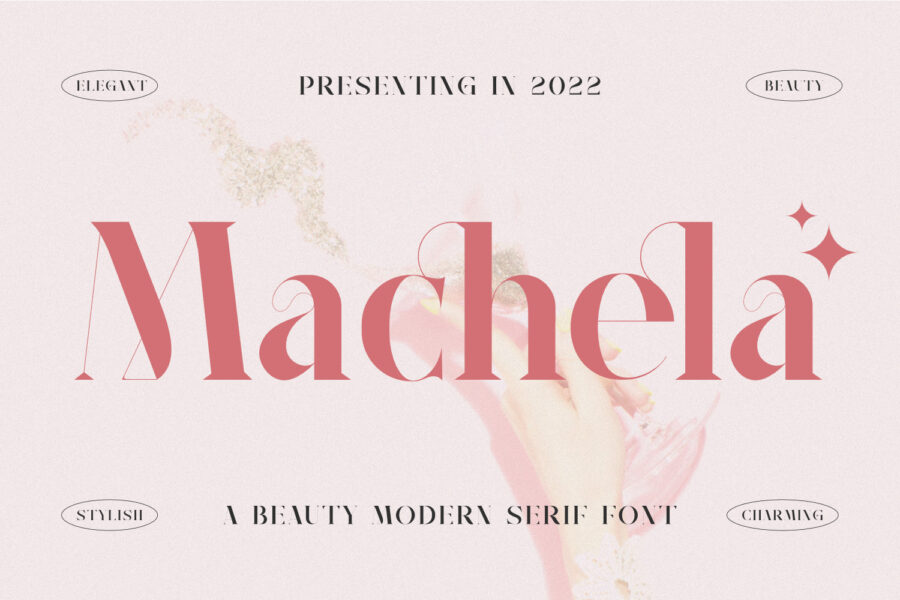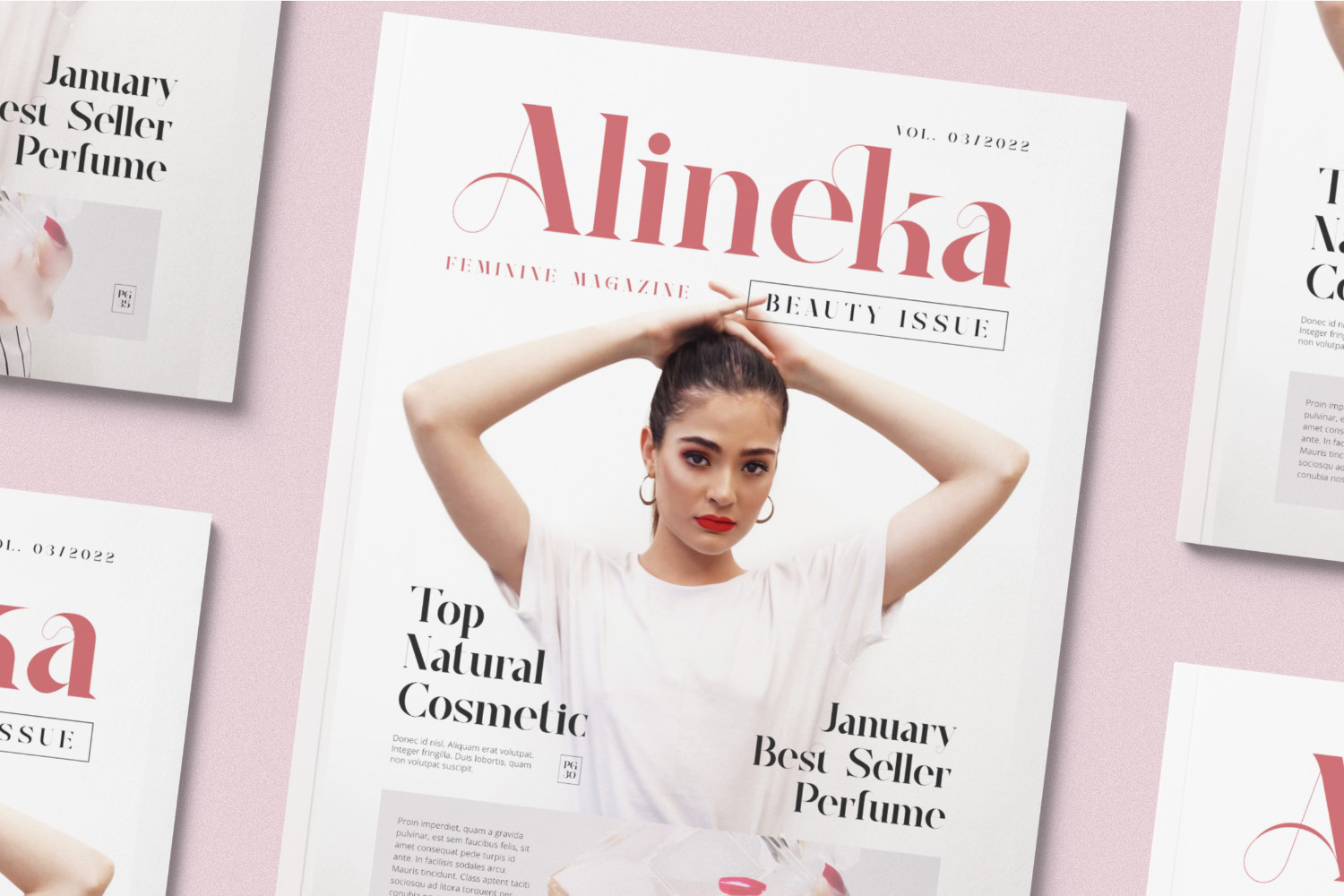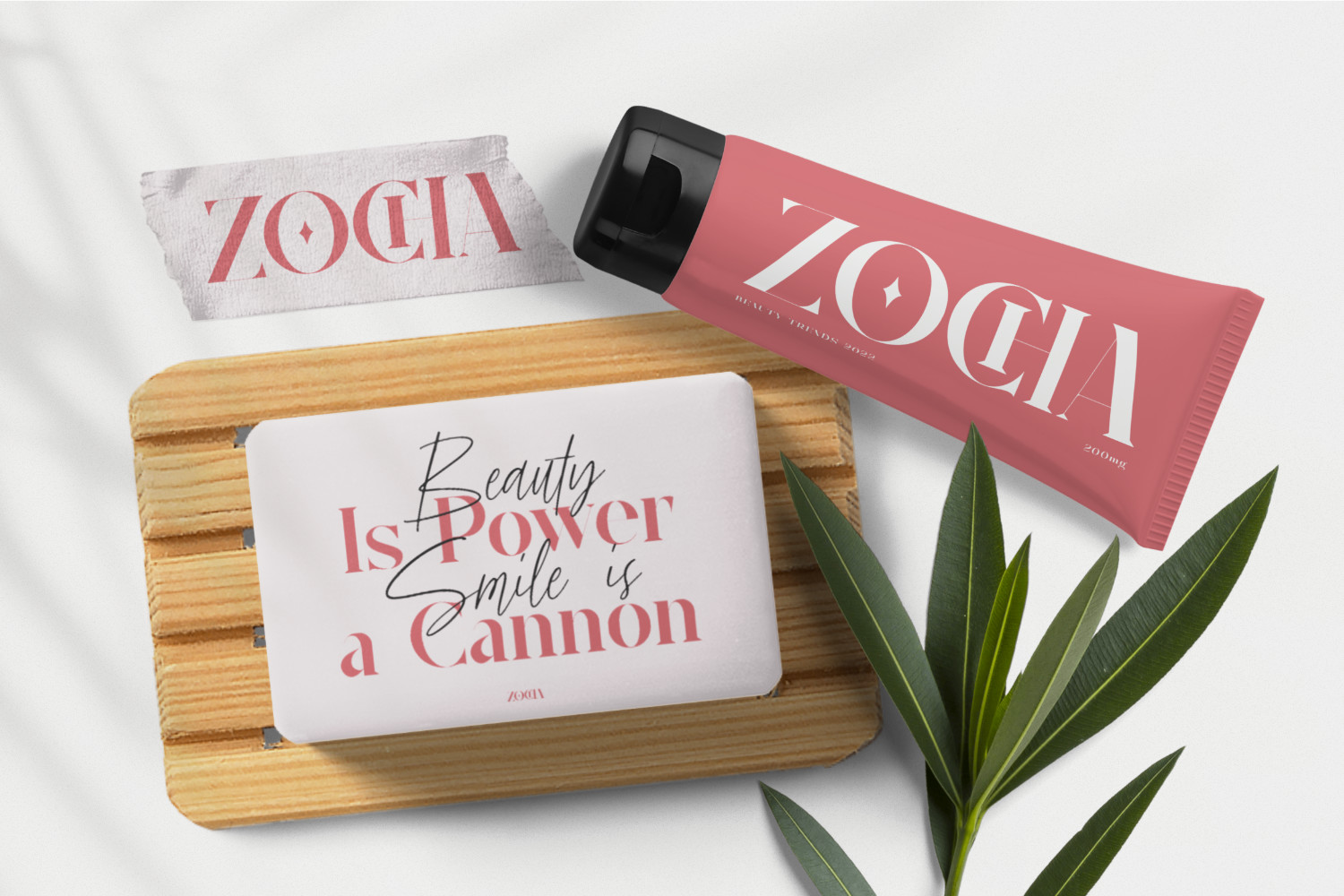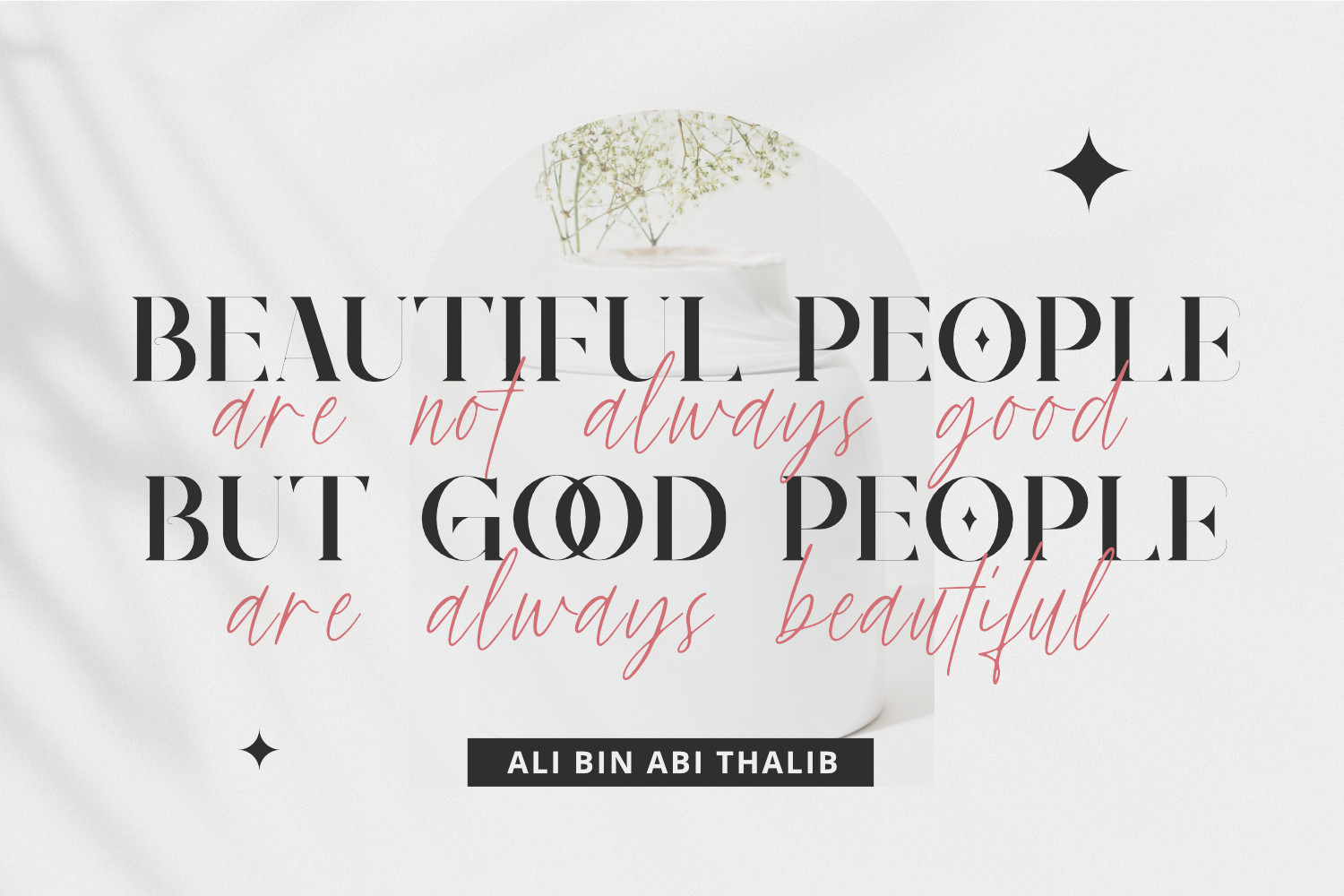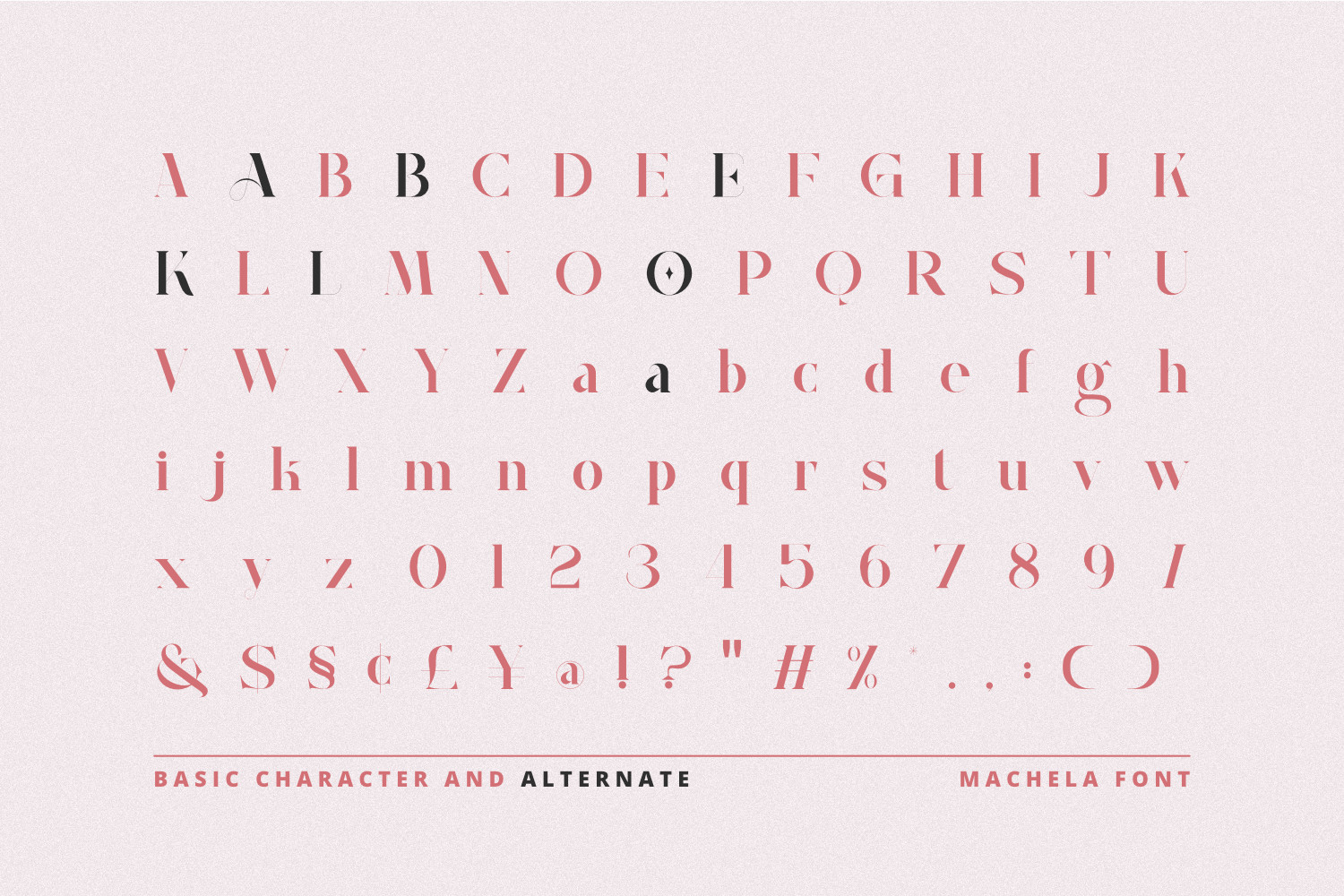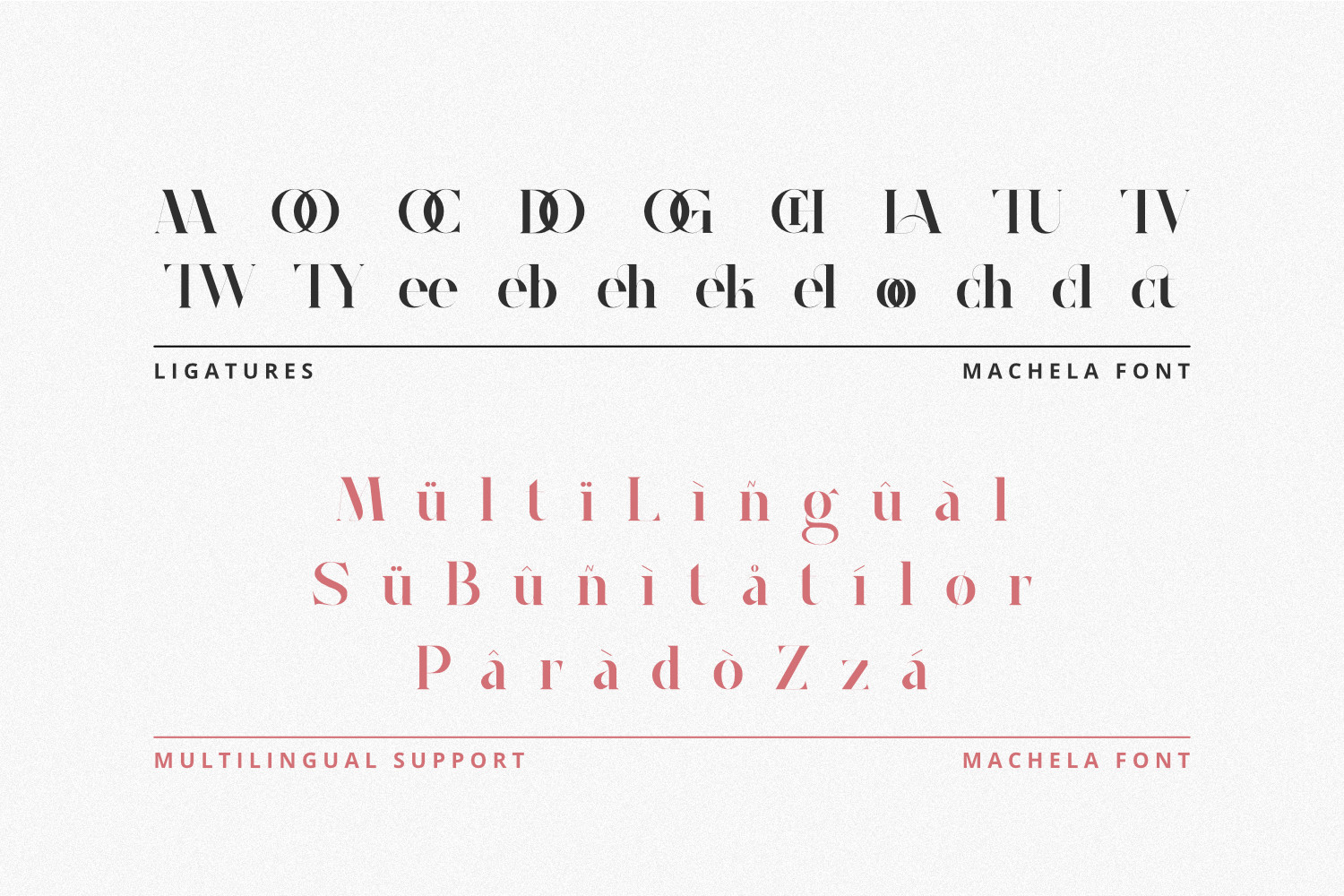
Machela is a beauty modern serif font that blends timeless elegance with a touch of charm. Its graceful curves, refined contrast, and delicate swashes make it a perfect choice for beauty brands, editorial headlines, and high-end packaging. Machela’s letterforms exude femininity and luxury while maintaining excellent readability for both display and branding purposes.
With a complete set of ligatures, alternates, and multilingual characters, Machela offers design flexibility across print and digital formats. Whether you’re crafting a feminine logo, a graceful magazine cover, or stylish cosmetic packaging, this font brings sophistication and charm to every visual composition.